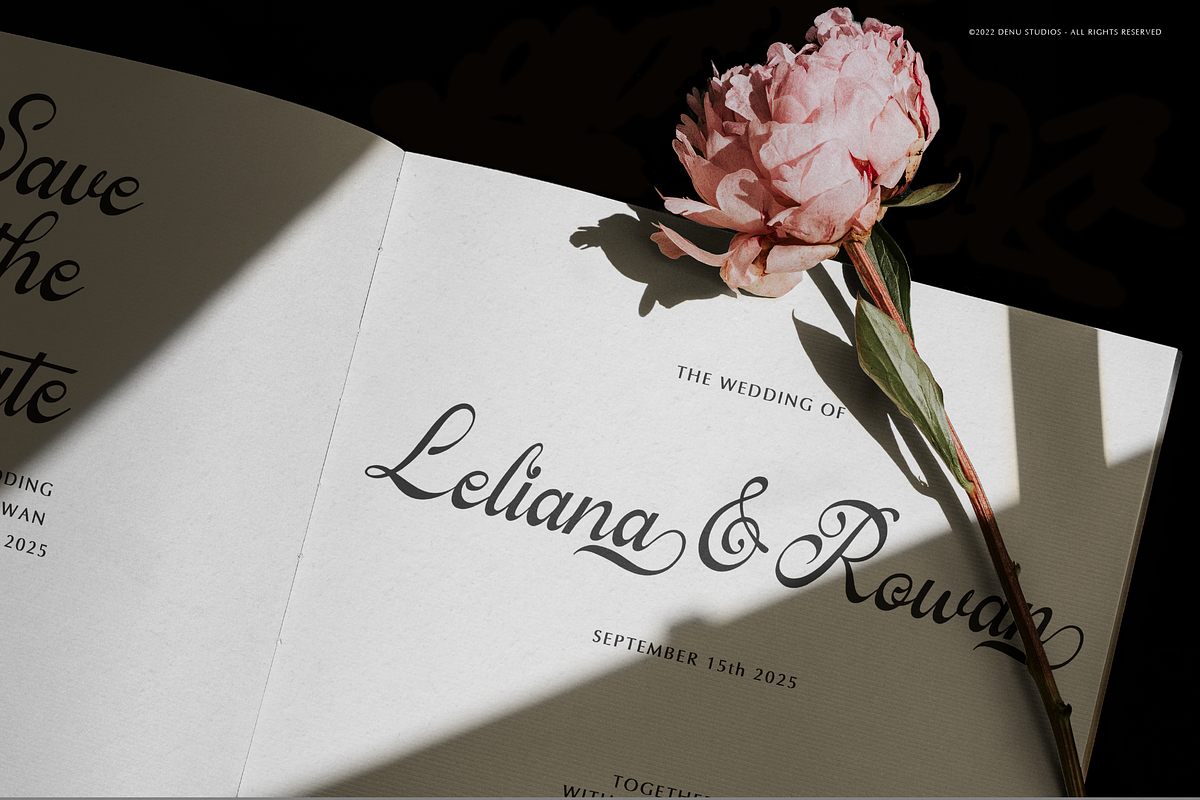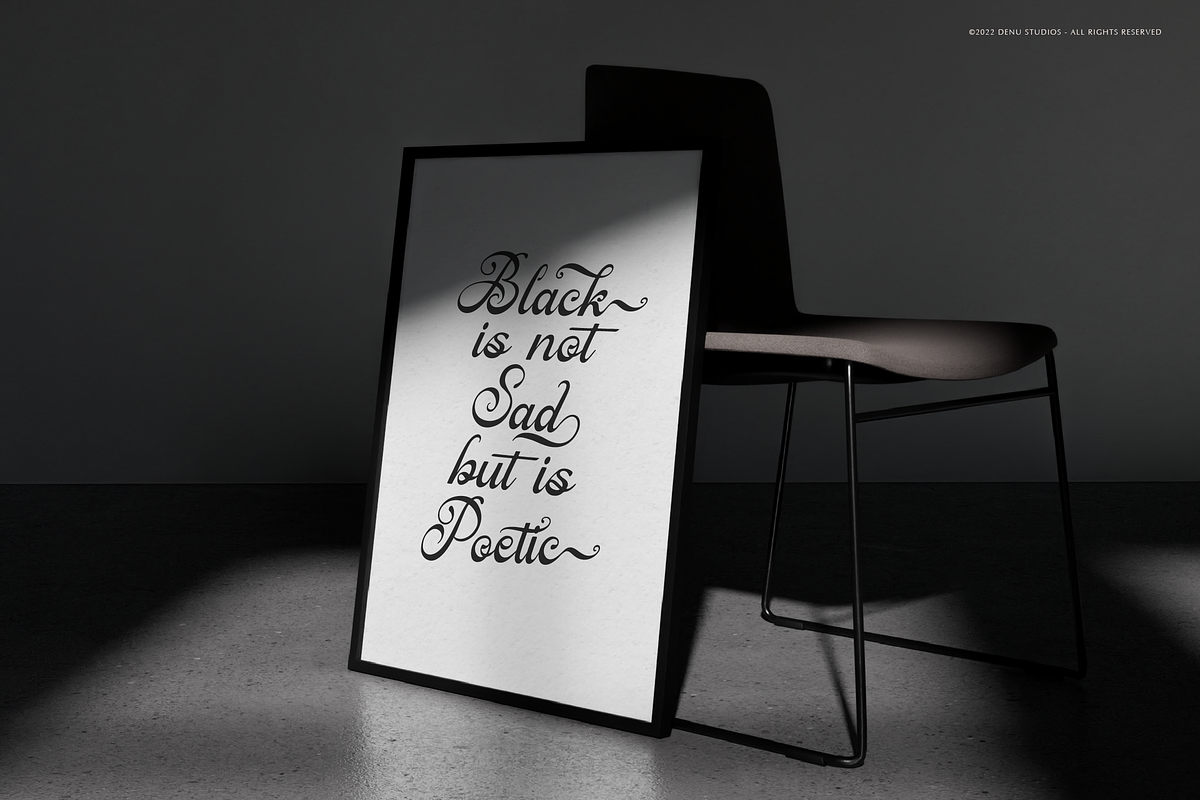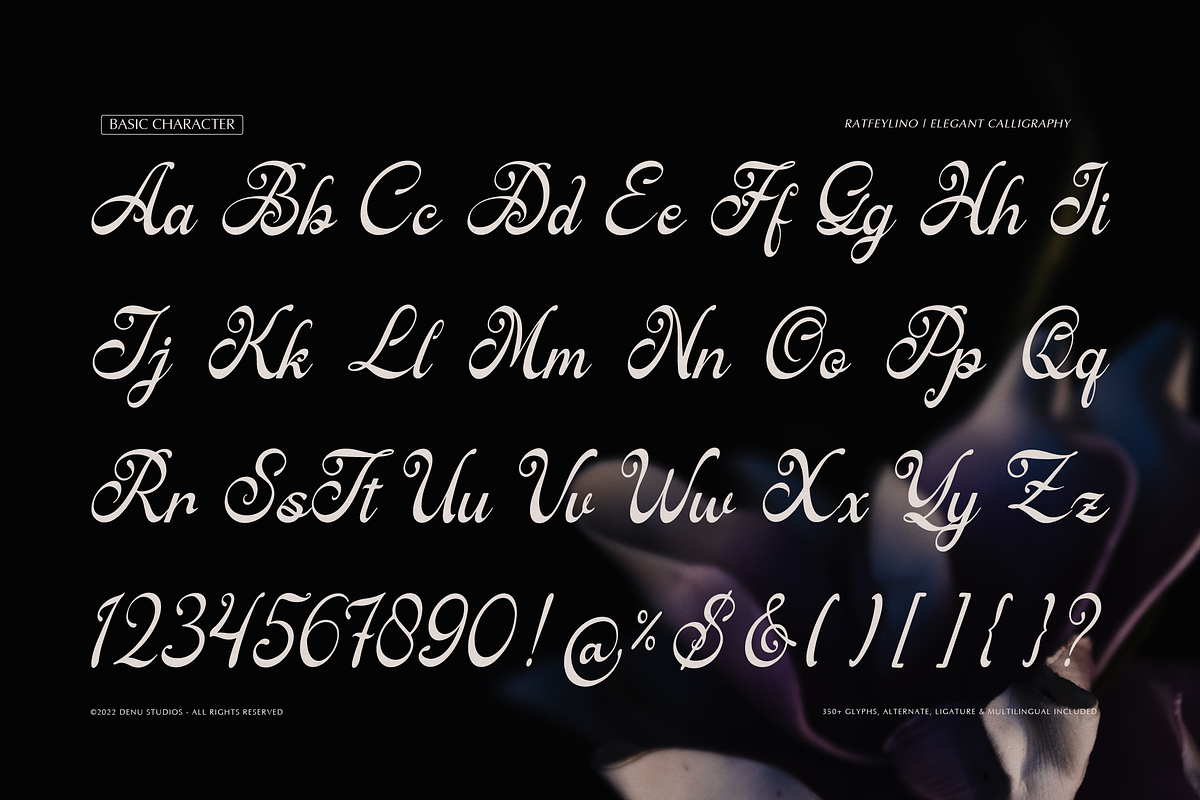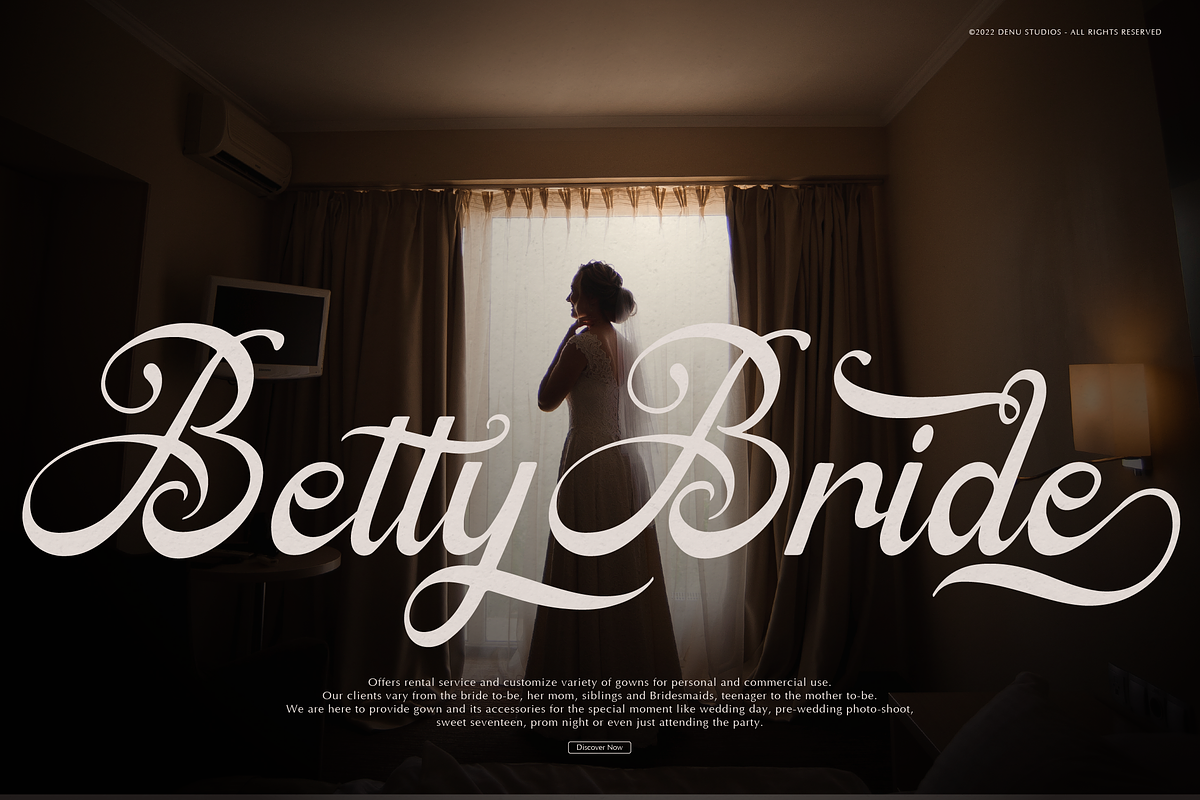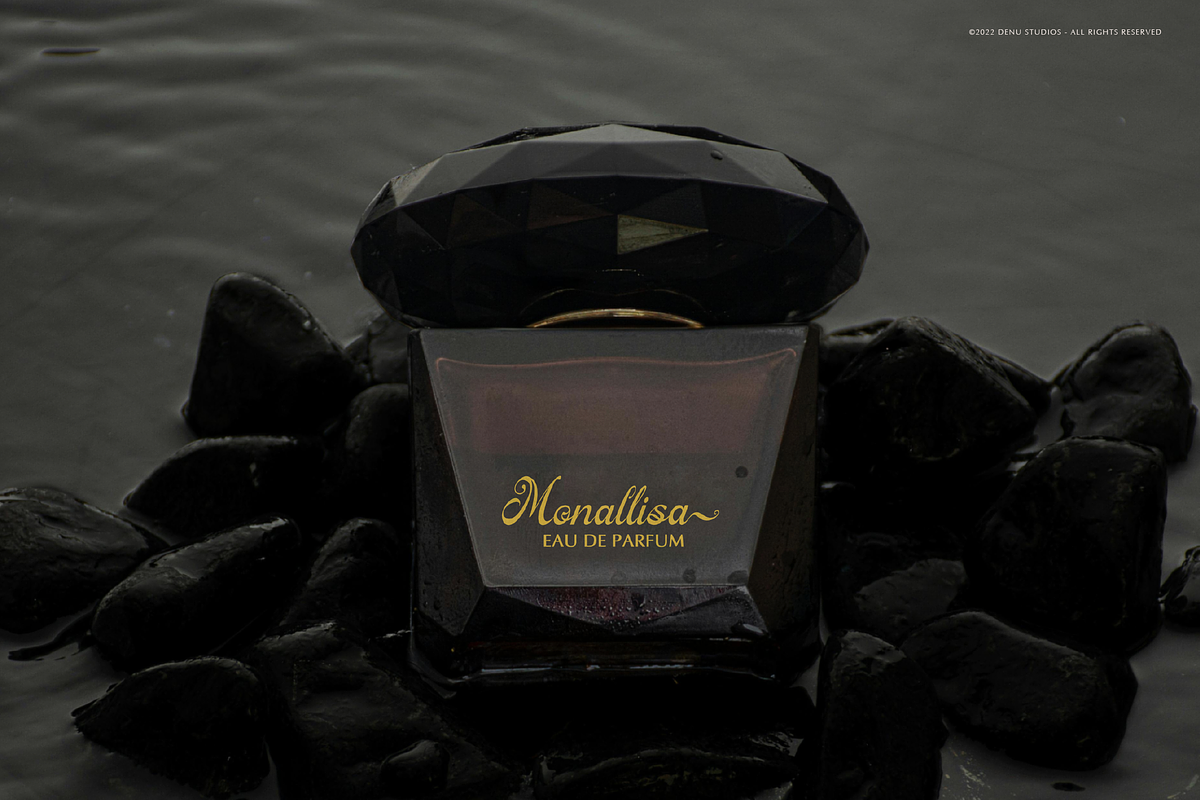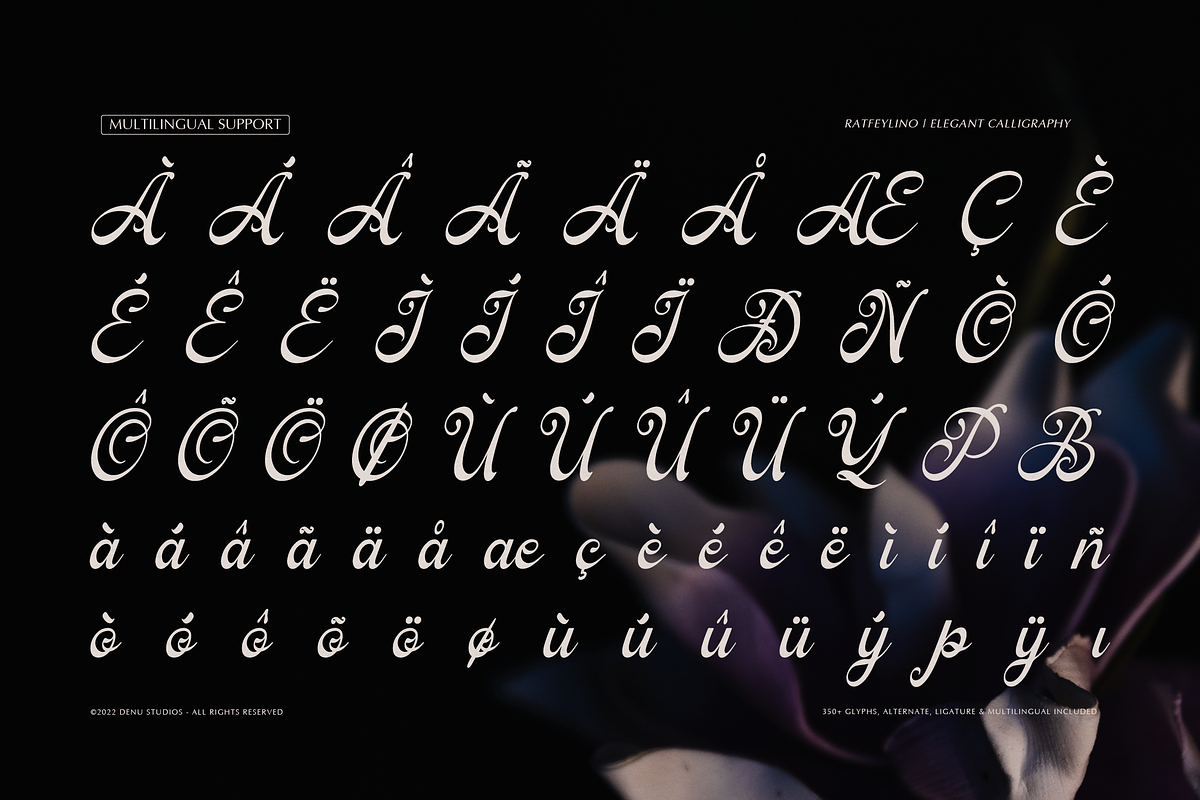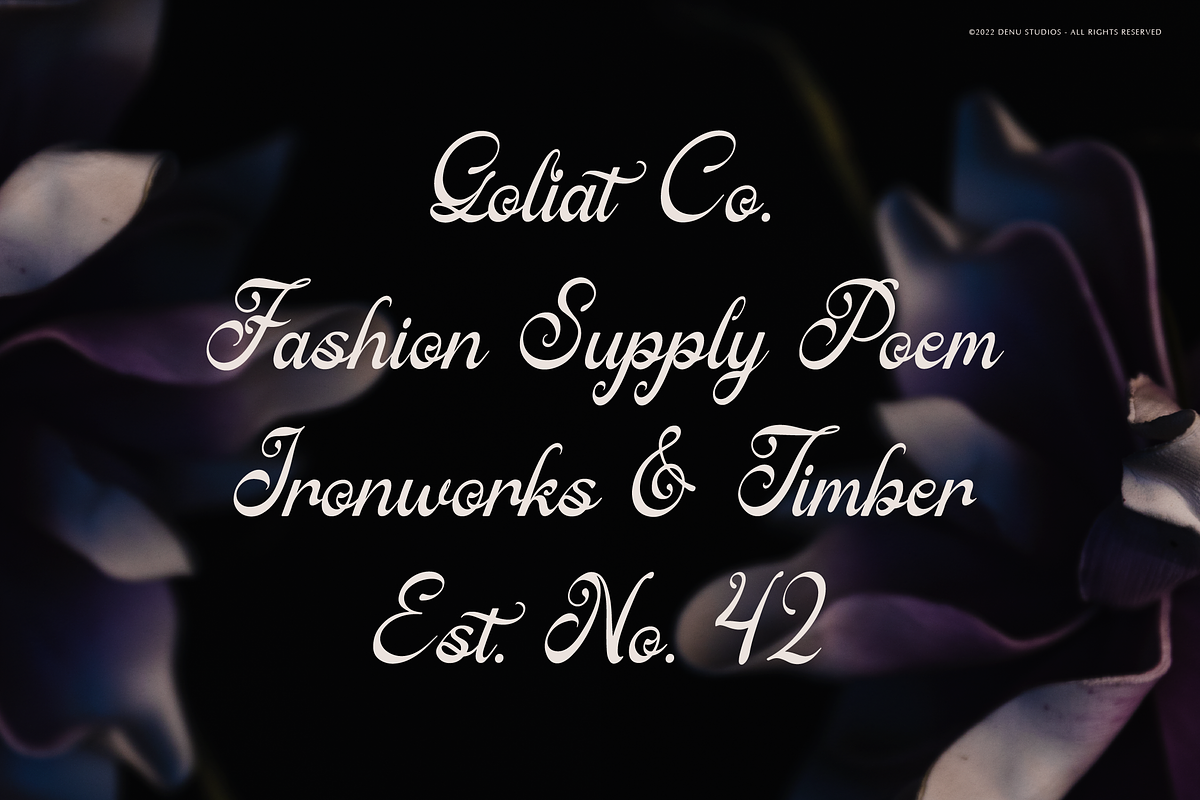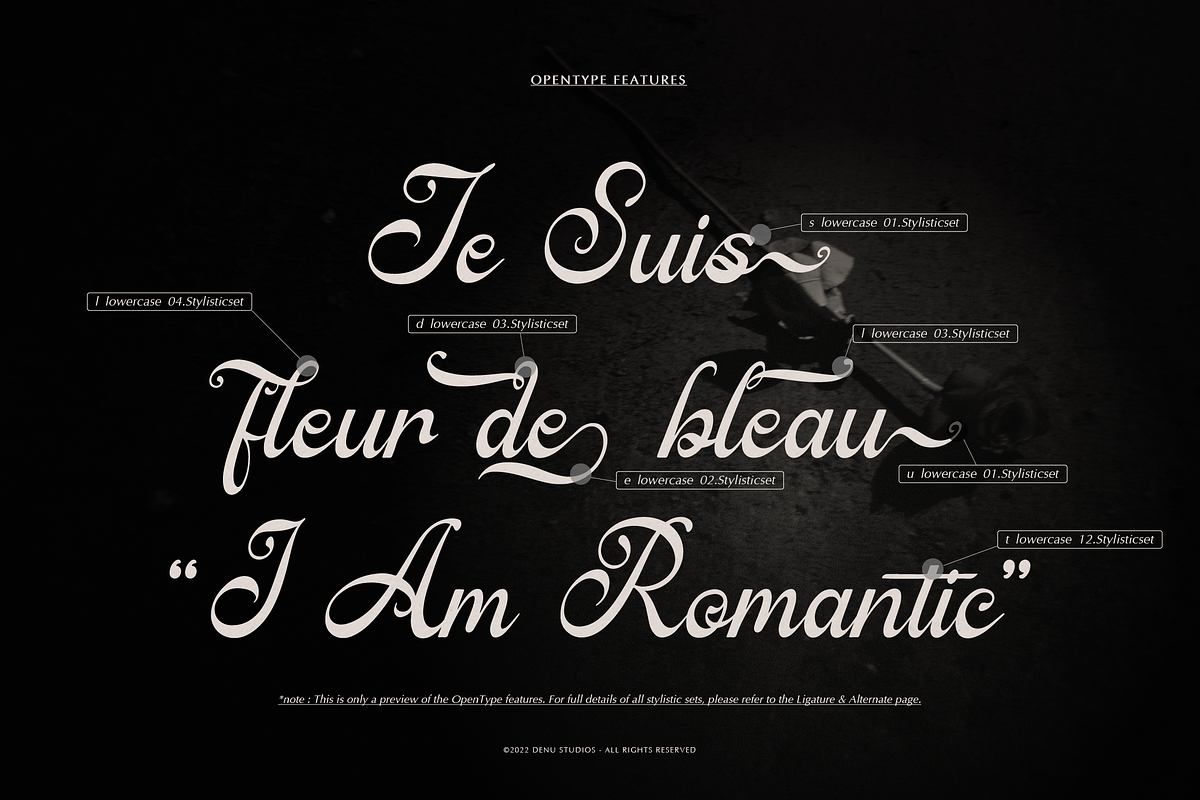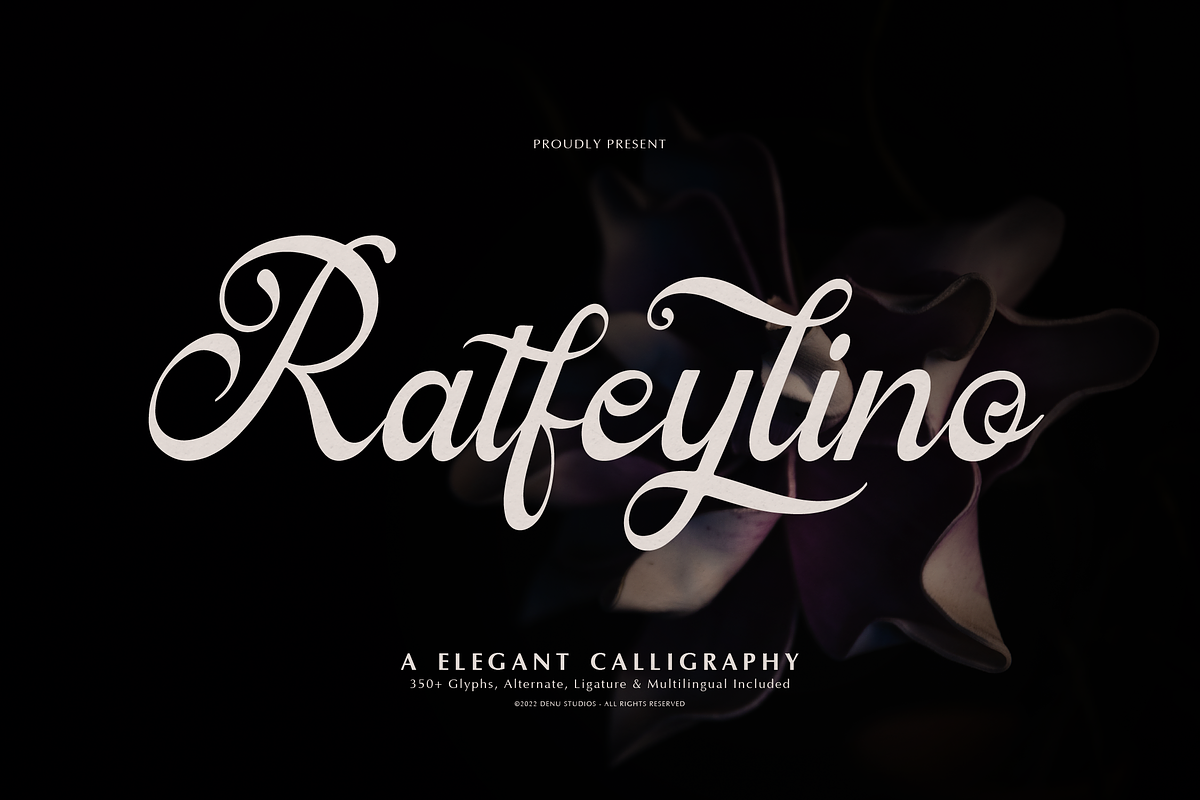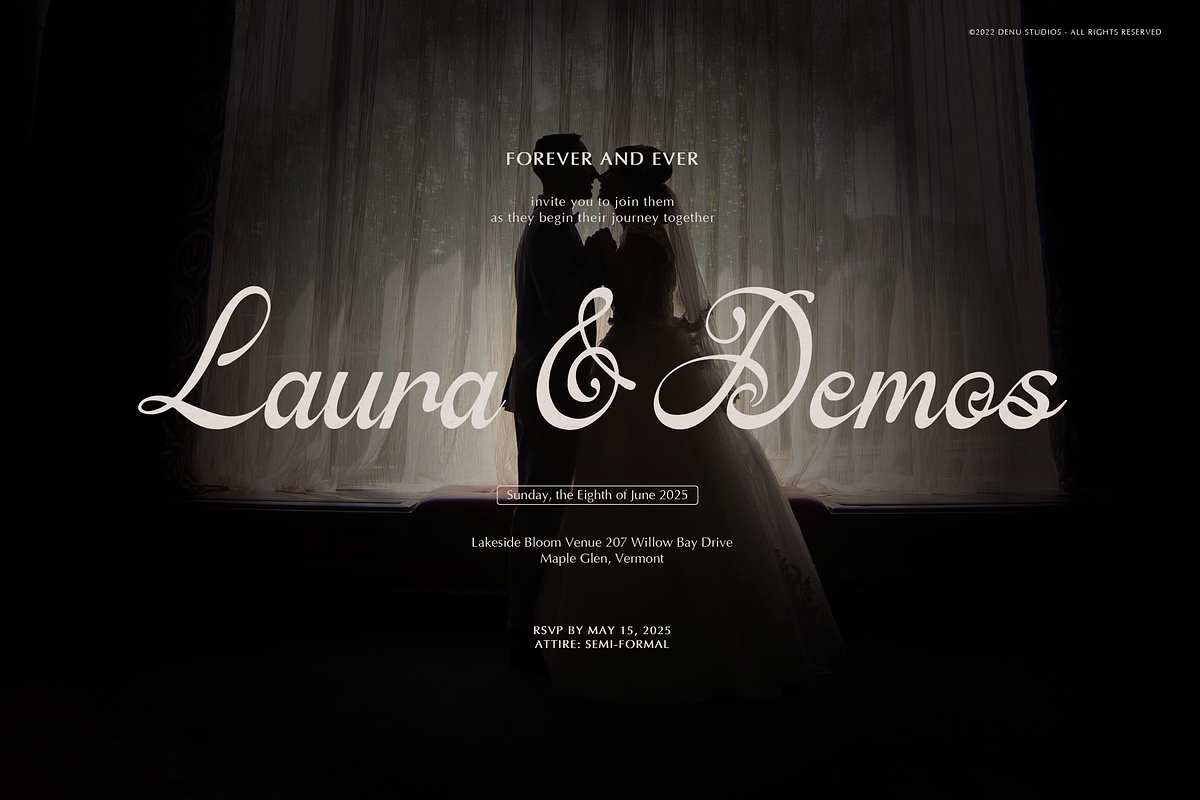
Ratfeylino | Elegant Calligraphy
Ratfeylino | Elegant Calligraphy, from Denustudios, suitable for any projects such as: logos, branding projects, homeware designs, product packaging, mugs, quotes, posters, shopping bags, t-shirts, book covers, name card, invitation cards, greeting cards, label, photography, watermark, special events, and all your other lovely projects that need a Elegant Calligraphy taste.